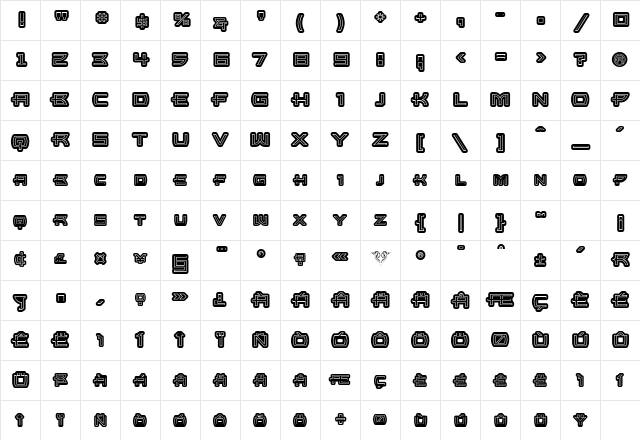
UltraBronzo Inline
Design Context for UltraBronzo Typeface
UltraBronzo brings ornamental detail and strong personality to headlines and identities, where visual impact matters more than quiet functionality.
Font Pairing: Pair with a clean neutral sans-serif for body copy to let UltraBronzo's character lead without overwhelming the composition.
Pro Tip: Treat UltraBronzo as the centrepiece of your typographic hierarchy. One strong heading set in a decorative face can carry an entire layout.